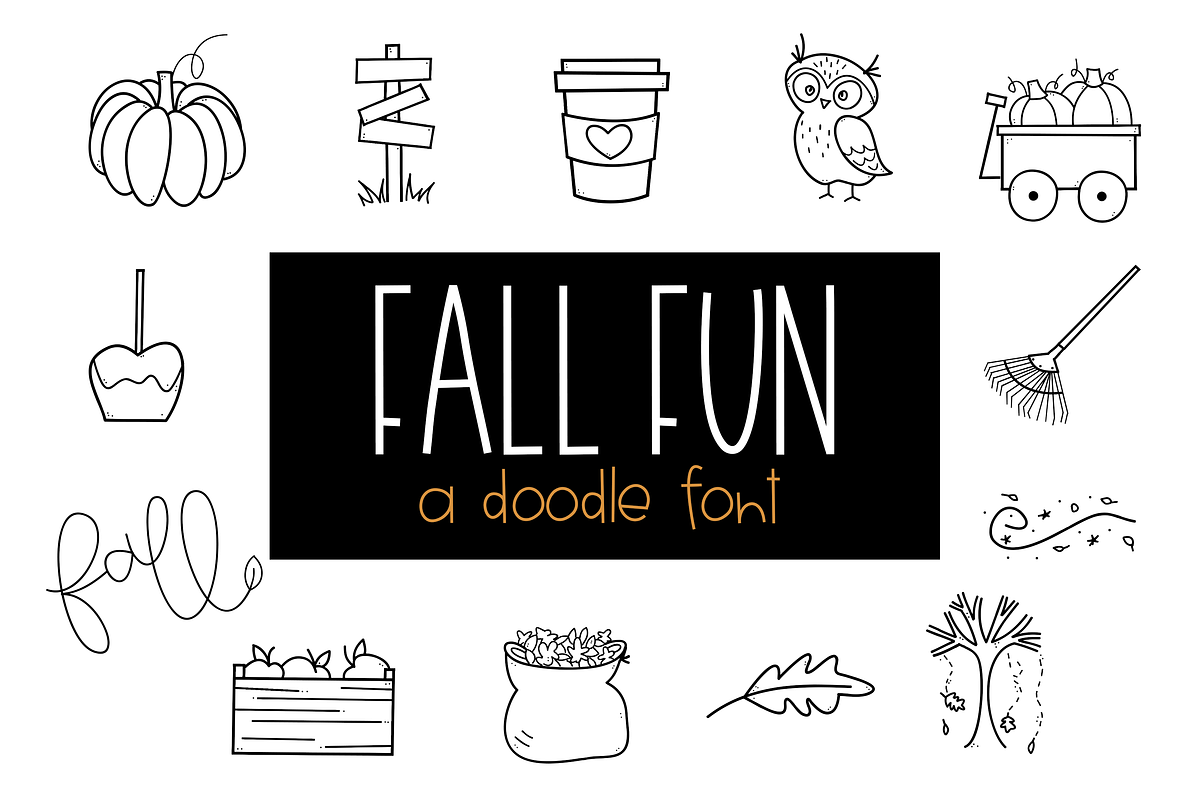
You must purchase this font for commercial use. However, you can download Fall Fun - A Doodles Font Free Download for testing purposes. Fall Fun is a whimsical, playful font designed to capture the spirit of autumn with fun, hand-drawn doodles and unique character shapes. Perfect for seasonal projects like Halloween invitations, fall-themed events, social media graphics, and kid-friendly designs, this font brings a cheerful and creative vibe to your typography.
With its doodle-inspired design and charming character set, Fall Fun is ideal for projects that need a fun and informal touch. Whether you're designing for a fall festival, a seasonal brand, or a playful greeting card, this font adds personality and warmth to your designs.